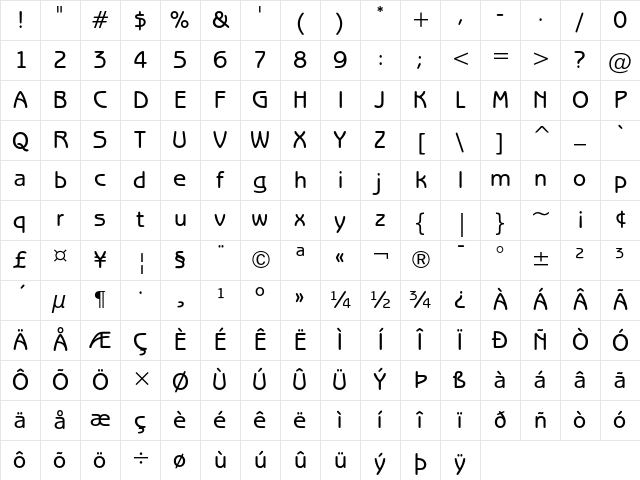
ITC Benguiat Gothic Medium
ITC Benguiat Gothic Medium Family
ITC Benguiat Gothic Medium
ITC Benguiat Gothic Medium Font Preview
ITC Benguiat Gothic Medium Uppercase Preview
ITC Benguiat Gothic Medium Lowercase Preview
ITC Benguiat Gothic Medium Numeric Preview
ITC Benguiat Gothic Medium Character Map
Complete ITC Benguiat Gothic Medium glyph index. Displaying only characters natively supported by ITC Benguiat Gothic Medium font.
ITC Benguiat Gothic Medium Character Map
Design Context for ITC Benguiat Gothic
ITC Benguiat Gothic takes a clean, functional approach - its unadorned letterforms prioritise legibility and work reliably across screen and print environments.
Font Pairing: Works well alongside a characterful serif or display font that can carry the expressive load while ITC Benguiat Gothic handles the functional copy.
Pro Tip: Use ITC Benguiat Gothic for UI labels, navigation, and short-form body copy where clean legibility is the priority.